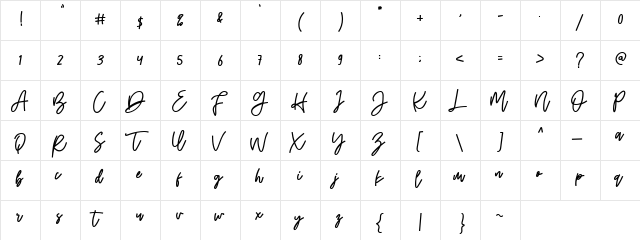
Octobre Regular Font Preview
Octobre Regular
Design Context for Octobre Typeface
Octobre is a composed and adaptable typeface that performs quietly and consistently across a wide range of design contexts.